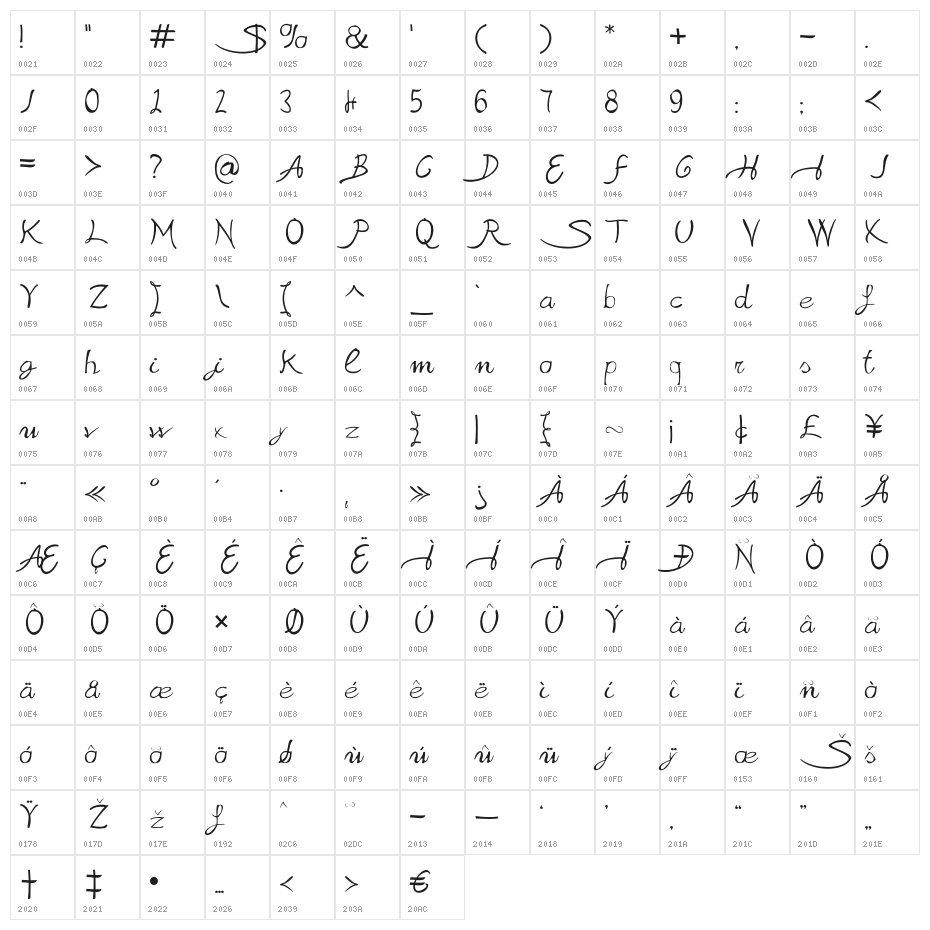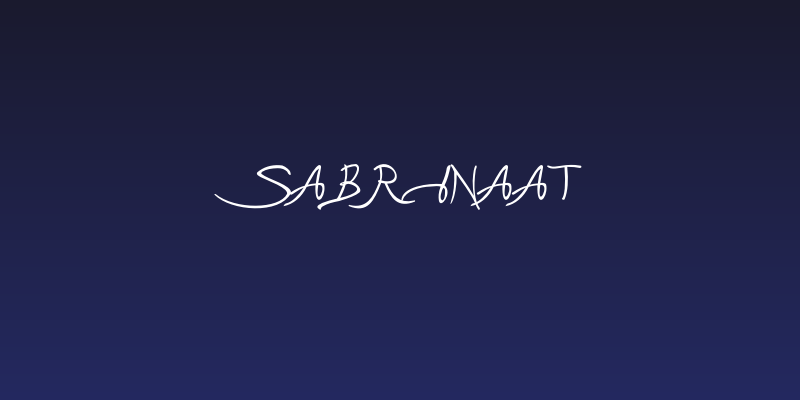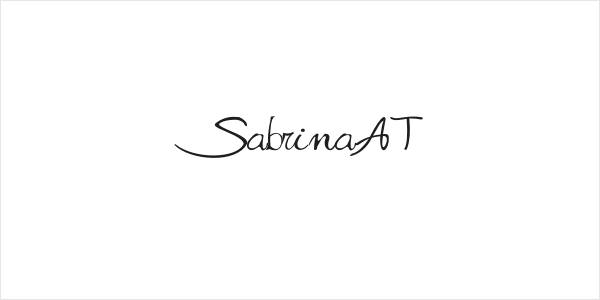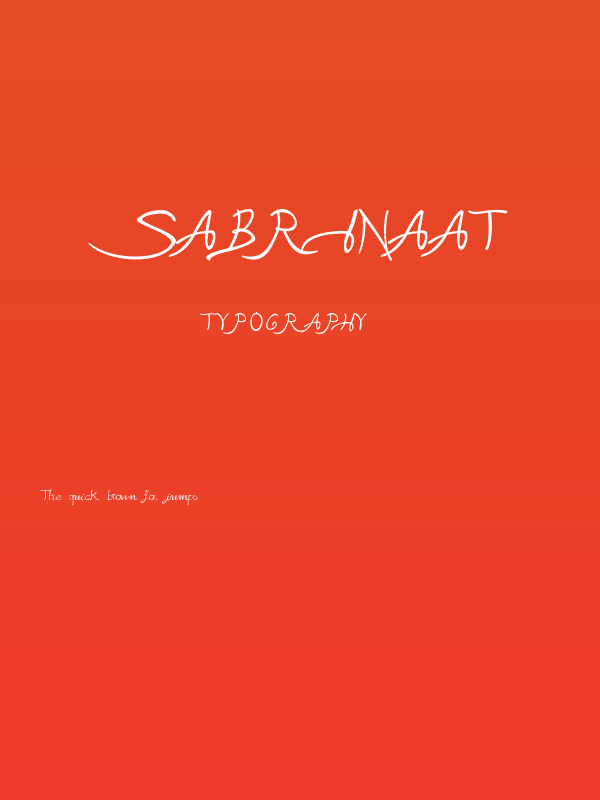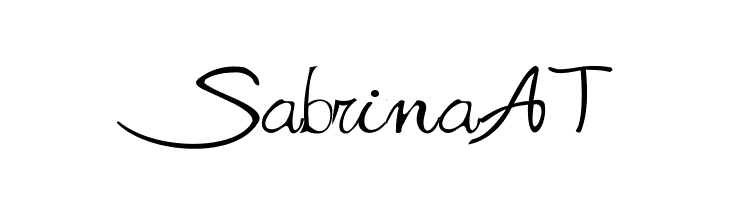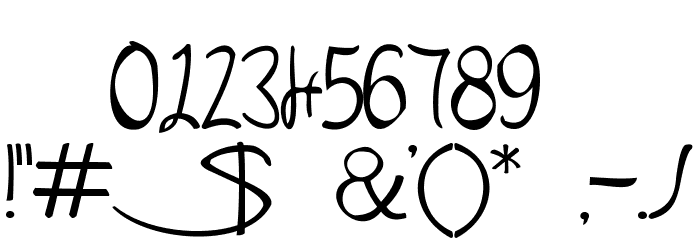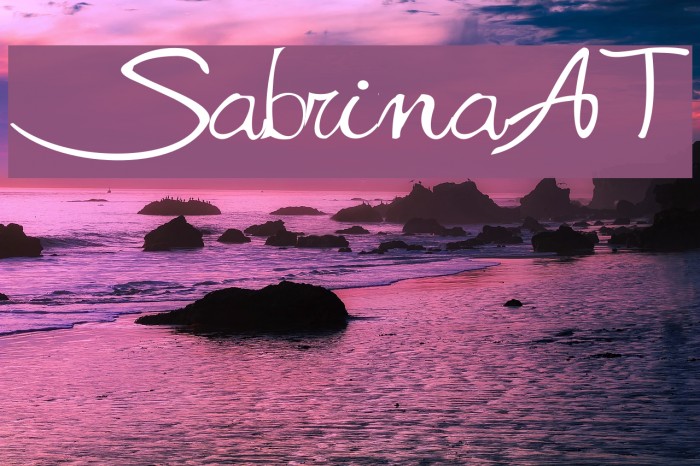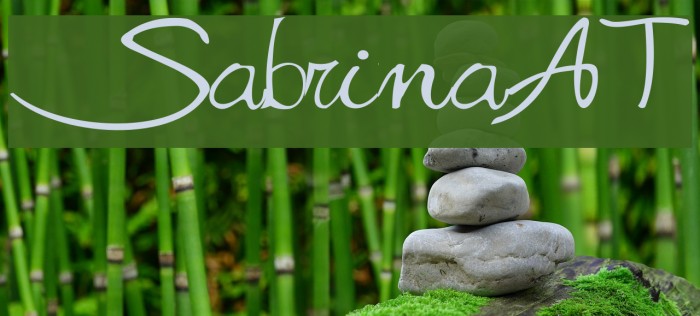
SabrinaAT Font
SabrinaAT Description
This font features a flowing, cursive style that exudes elegance and sophistication. The uppercase letters are characterized by their sweeping curves and graceful lines, while the lowercase letters maintain a consistent fluidity that complements the overall design. The numerals are bold and slightly whimsical, adding a playful touch to the otherwise refined aesthetic. Special characters are creatively integrated, maintaining the font's cohesive look. This font's unique style makes it ideal for projects that require a personal, handwritten touch.